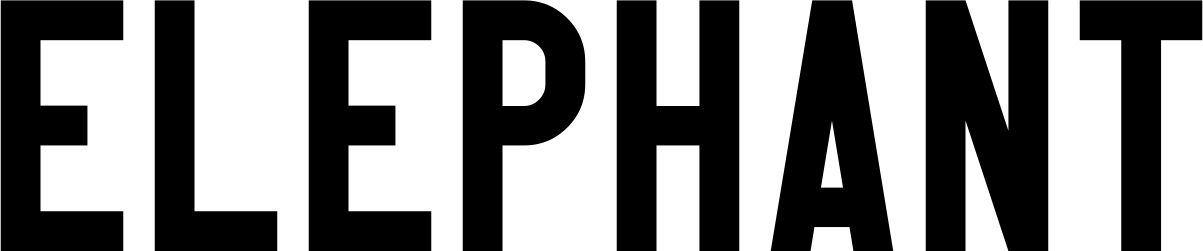
Elephant Font
There come times when you need your content to be casual and straight so people can be comfortable with it, and that is exactly when you use a sans-serif font. Elephant is a perfect example of it, and you can use it in texts, websites, apps, signages, and user interfaces.
This font comes with an excellent collection of characters containing the uppercase of the alphabet and the numbers. From this collection, you won’t get lowercase or punctuation marks.